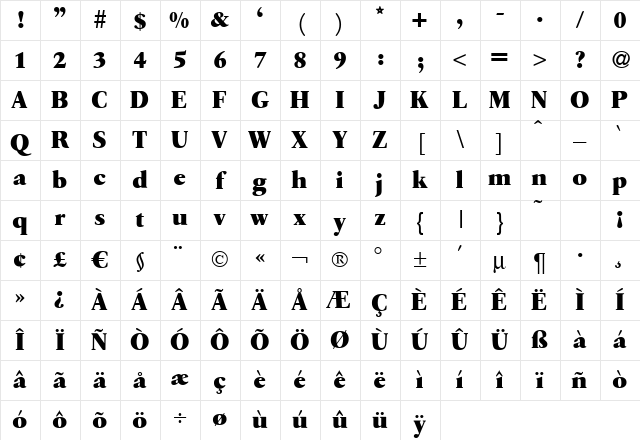
Q650-Roman-Xbold Regular
Design Context for Q650-Roman-Xbold
Q650-Roman-Xbold is a composed and adaptable typeface that performs quietly and consistently across a wide range of design contexts. Its bold stroke weight gives it real presence on the page.